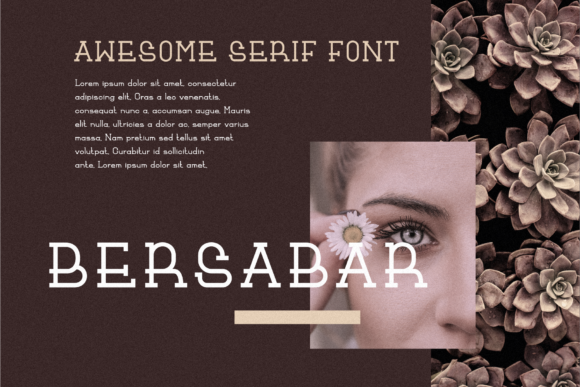
The Bersabar Font: A Designer’s New Best Friend
I’ll never forget the time I was working on a project for a client who wanted a vintage-inspired logo. I had spent hours browsing through font libraries, but nothing seemed quite right. That was until I stumbled upon the Bersabar font. Its unique blend of classic and modern elements instantly caught my eye, and I knew I had found the perfect fit. In this article, I’ll share my love for the Bersabar font, its features, and how to make the most of it in your designs.
- ✨ Versatility: Bersabar is incredibly versatile, making it suitable for a wide range of designs, from logos and branding to headings and body text.
- ✅ Stylish look: The font’s stylish and elegant appearance is sure to elevate your designs and make them stand out.
- 💡 OpenType features: Bersabar supports OpenType features, including glyphs and stylistic alternates, giving you even more creative control.
While Bersabar is an excellent font, there are a few minor quirks to be aware of:
- 🤔 Limited character set: Some users have reported that the font’s character set is not as extensive as they would like. However, for most design projects, Bersabar’s character set should be more than sufficient.
- ⚠️ Kerning issues: As with any font, you may encounter kerning issues, particularly when using Bersabar in certain combinations with other fonts or in specific design contexts.
The Story Behind Bersabar
Bersabar was designed with the goal of creating a unique and versatile font that could be used in a wide range of design projects. The font’s creator drew inspiration from classic serif fonts, while also incorporating modern elements to give Bersabar a fresh and stylish look.
Q: What is the Bersabar font?
A: Bersabar is a unique and interesting serif font that’s incredibly versatile and perfect for a wide range of design projects.
Q: What design projects is Bersabar suitable for?
A: Bersabar is suitable for a wide range of design projects, including logos, branding, headings, body text, and more.
Q: Does Bersabar support OpenType features?
A: Yes, Bersabar supports OpenType features, including glyphs and stylistic alternates.